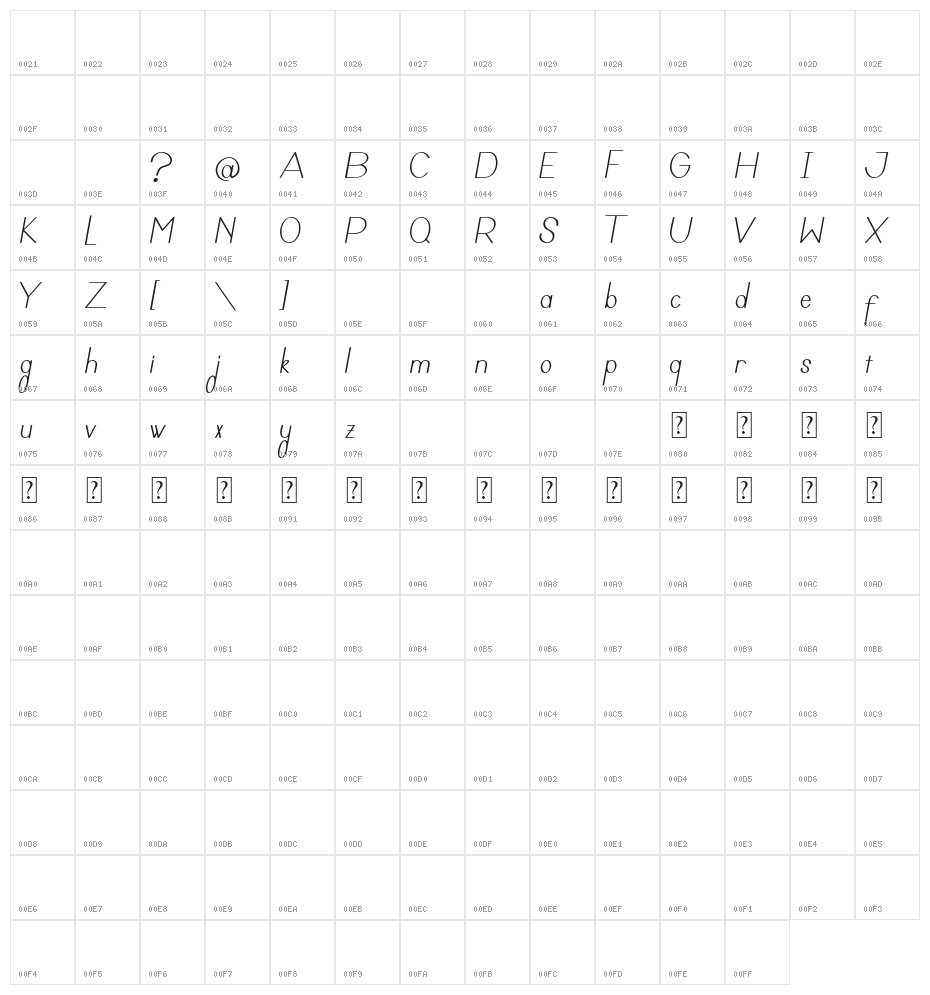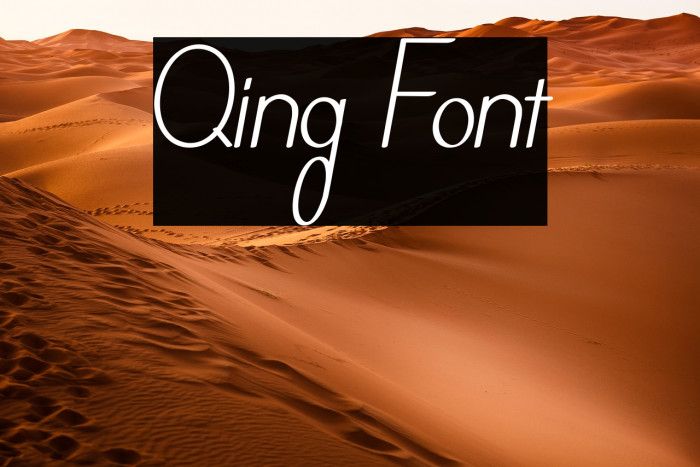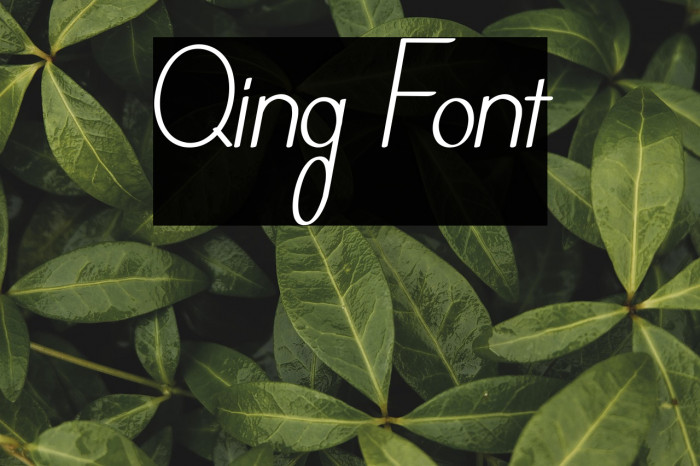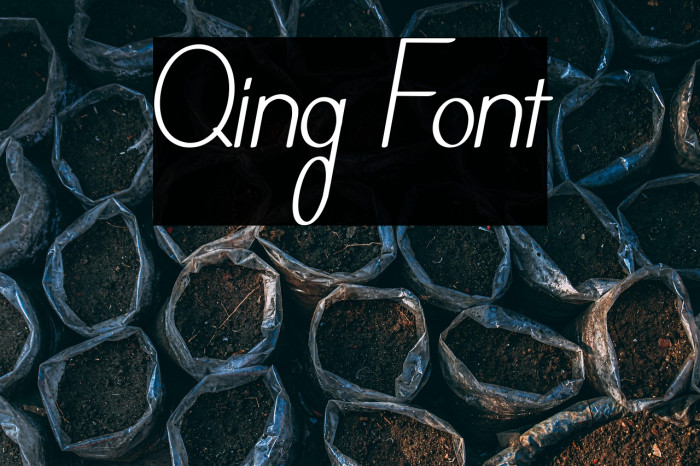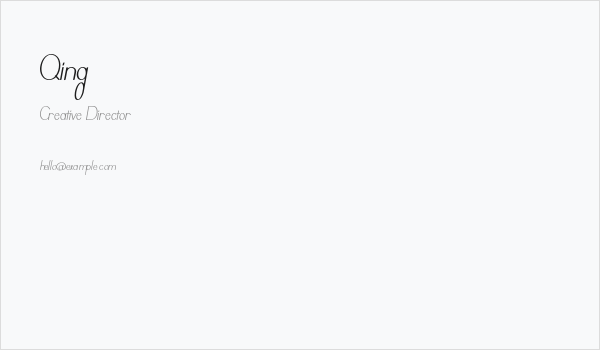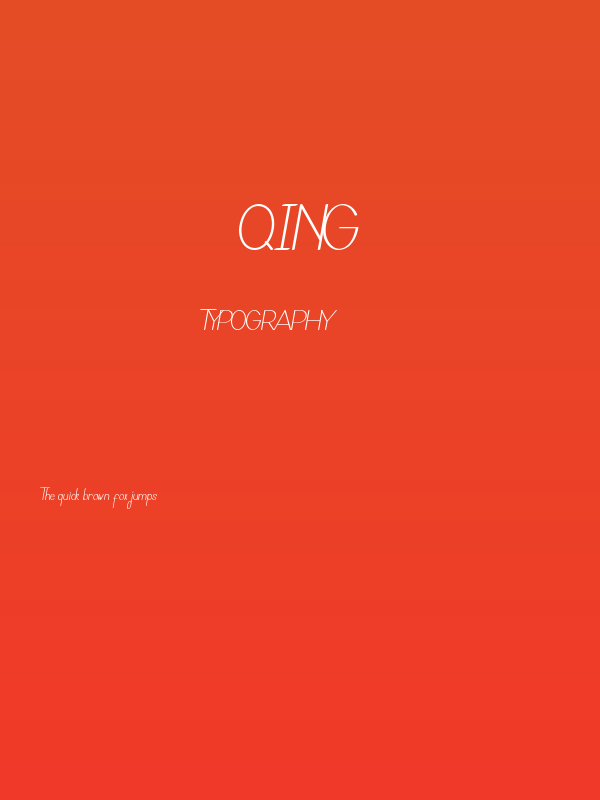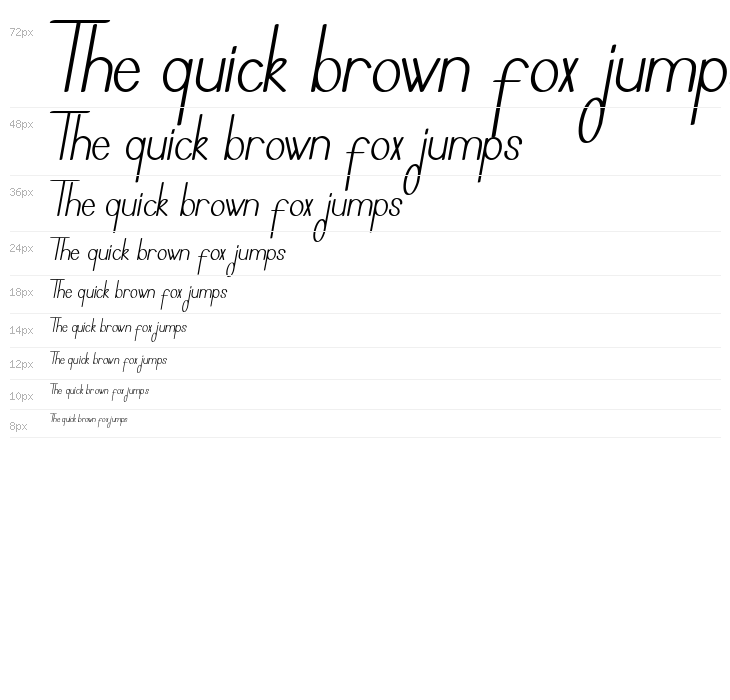
Qing Font
Qing Description
This font features a sleek and modern design with a slightly italicized style, giving it a dynamic and elegant appearance. The characters are thin and elongated, with a consistent stroke width that provides a clean and sophisticated look. The uppercase letters are tall and narrow, while the lowercase letters maintain a similar slender form, enhancing the font's overall uniformity. The spacing between characters is balanced, ensuring readability while maintaining a stylish aesthetic. This font's unique characteristics make it suitable for contemporary design projects where a touch of elegance and modernity is desired.
| Proposed Projects | Ideal for fashion magazines, modern branding, elegant invitations, and minimalist web design. |